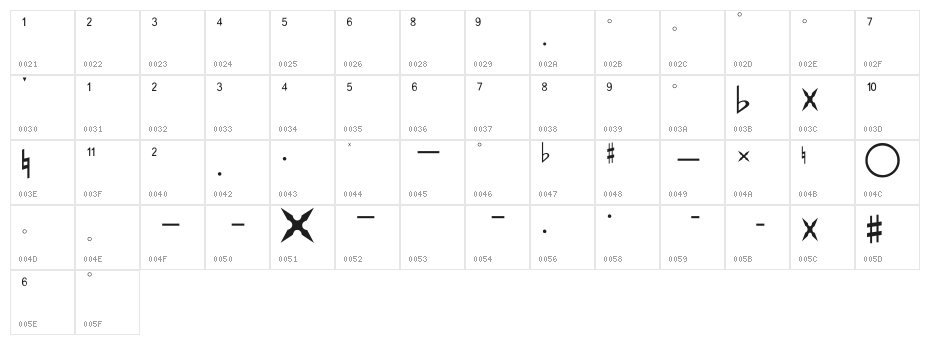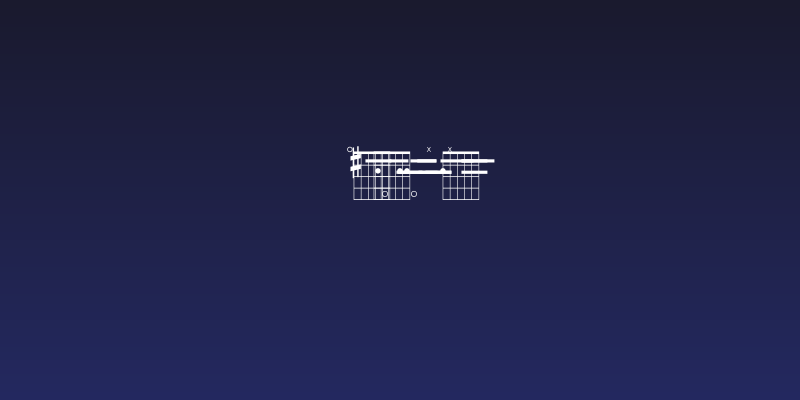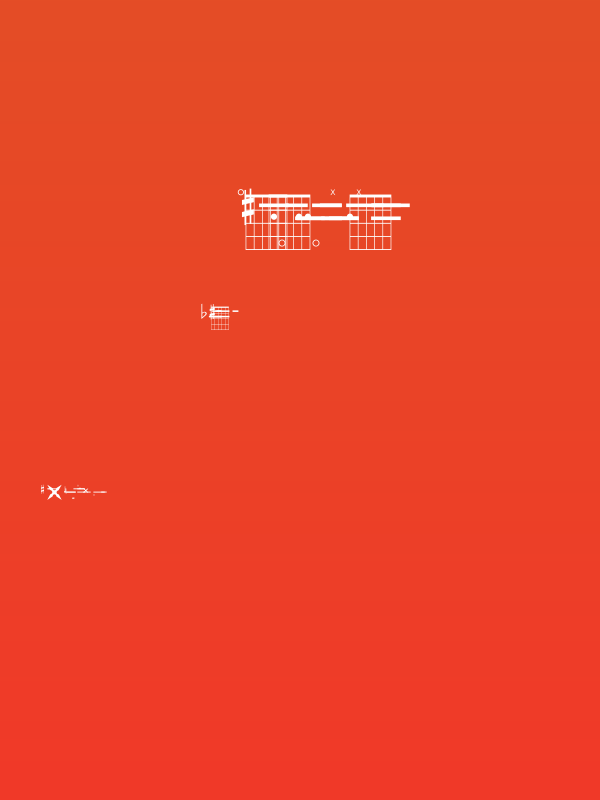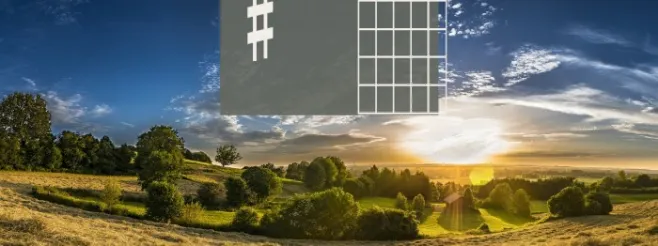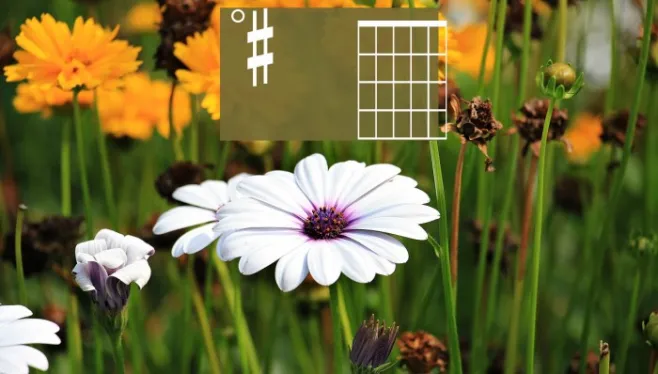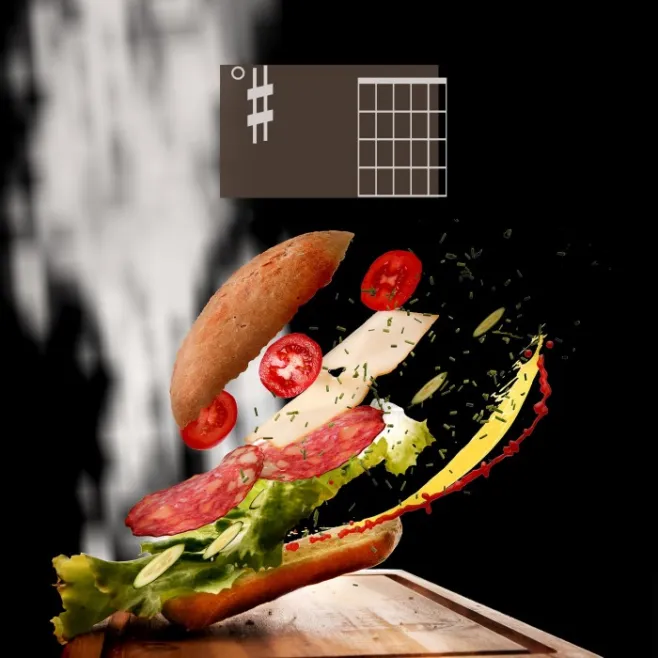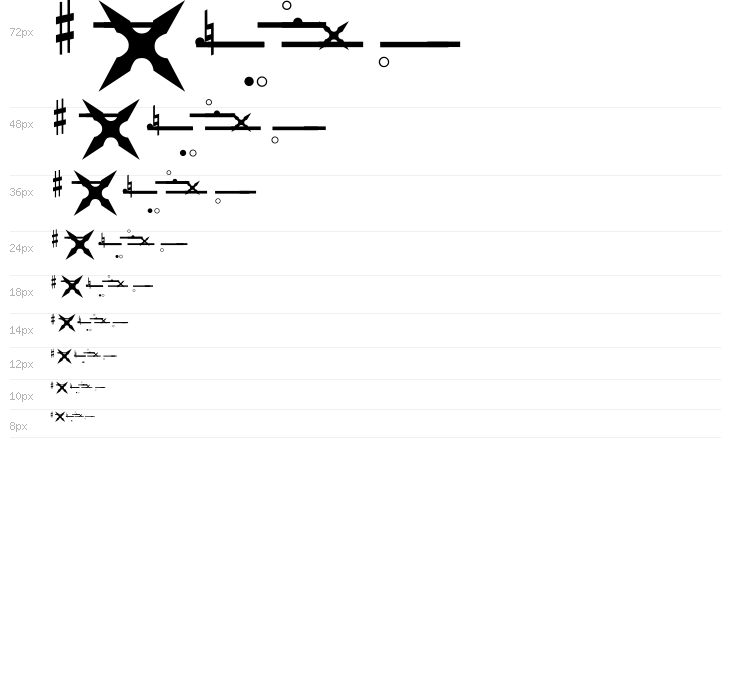
FarHat construccion de Acordes Font
FarHat construccion de Acordes Description
This image contains a mix of musical notation, chord diagrams, and numerals, rather than a cohesive font set. The numerals shown are in a geometric, sans-serif style with uniform stroke width and rounded forms. The rest of the elements are musical symbols and diagrams, not alphabetic or typographic characters.
| Overall Style | Modern, Educational |
| Use Case | Music notation, Educational diagrams |
| Proposed Projects | Music theory worksheets, educational materials, chord charts. |